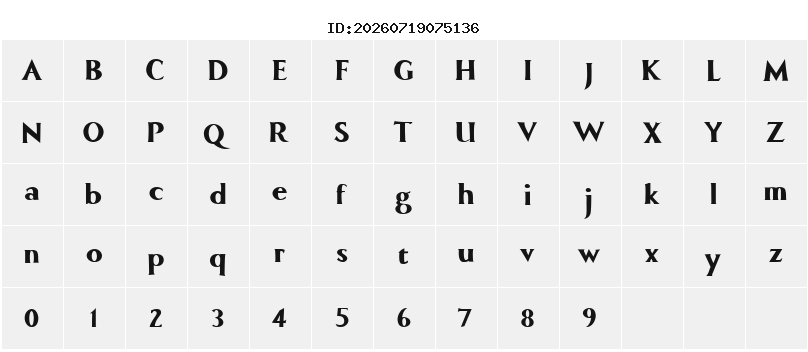
Comic Roman Preview
• Font Name: Comic Roman
• Font ID: RolandHuse: Comic Roman Bold: 2014
• Full Font Name: Comic Roman Bold
• PostScript Name: ComicRoman-Bold
• Designer: Roland Huse
• Manufacturer: Roland Huse
About Comic Roman.ttf
Comic Roman.ttf is a modern, elegant sans-serif font designed for ultimate readability and visual harmony. Perfect for branding, headlines, web design, and print materials.